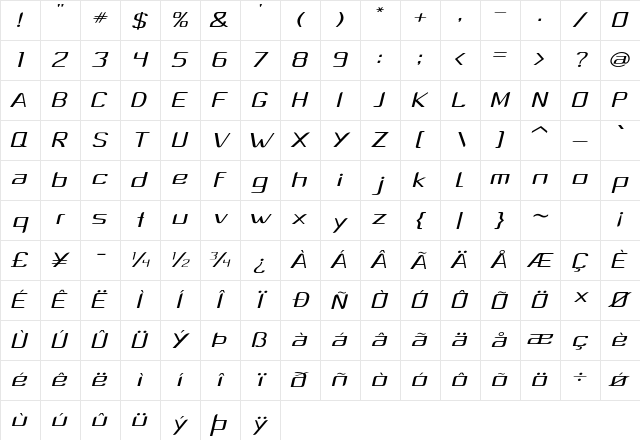
Corina Expanded Italic
Style: Expanded Italic
Corina Family
Corina Expanded Italic
Design Context for Corina
Corina is a composed and adaptable typeface that performs quietly and consistently across a wide range of design contexts. The slanted form adds forward momentum and visual energy.